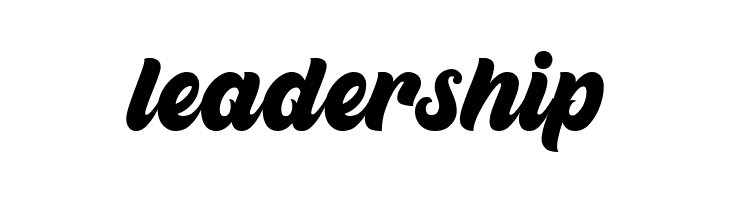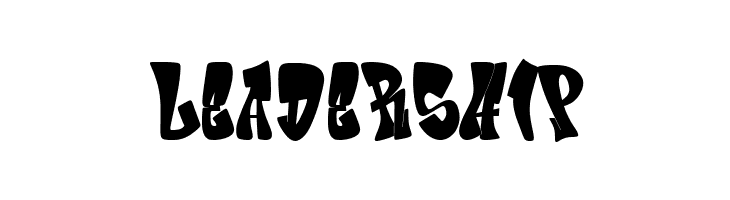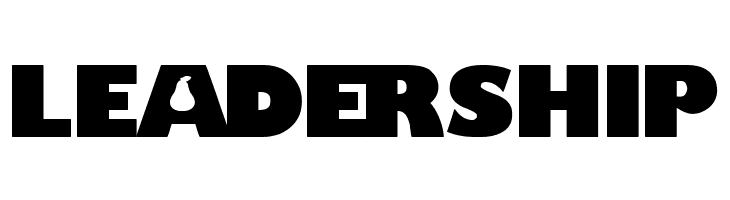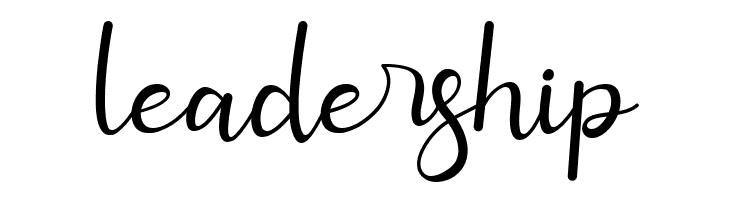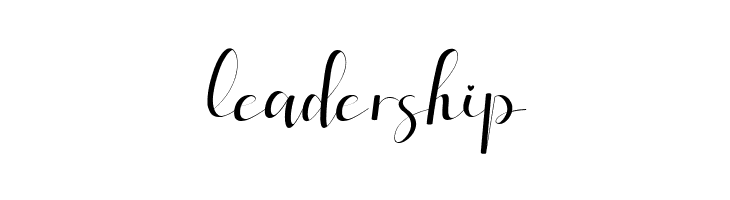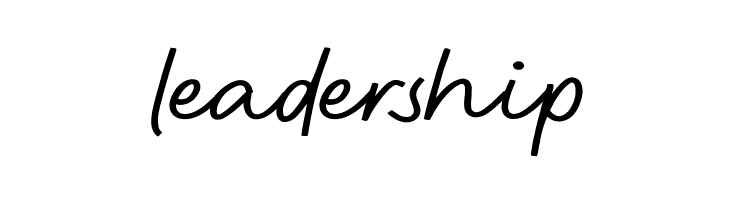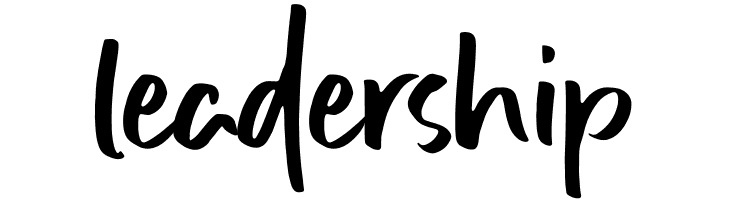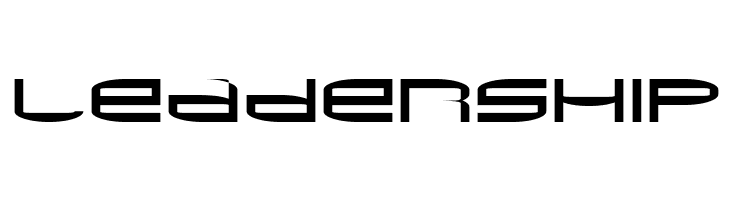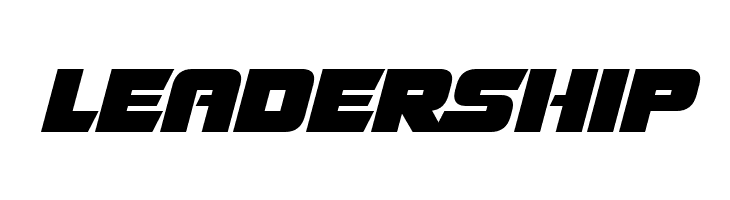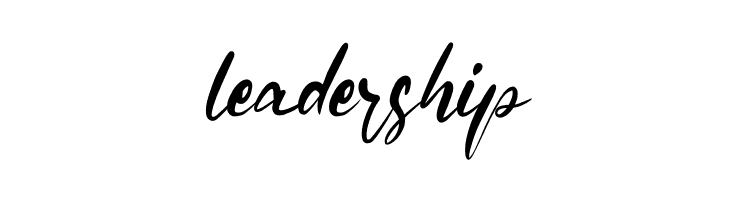
A jagged, spooky font with a bold, distressed appearance.
A bold, flame-themed font with a dynamic and energetic style.
A spooky, dripping font perfect for Halloween themes.
A playful and bold font with exaggerated curves and angles, perfect for creative projects.
A bold, Halloween-themed decorative font with ghostly and pumpkin-like characters.
A bold, jagged font with a spooky, haunted theme.
A bold, gothic-inspired font with sharp, angular edges and a dramatic aesthetic.
Casual handwritten script with artistic flair.
Bold handwritten font with a playful style.
A dynamic handwritten font with fluid strokes and a modern feel.
A dynamic and elegant script font with fluid, cursive strokes.
A playful, handwritten font with a casual and friendly appearance.
A bold, geometric font with thick strokes and a modern, impactful style.
A bold, futuristic italic font with sharp angles and a dynamic style.
A lively, cursive font with fluid strokes and a natural handwriting style.
A playful and flowing script font with smooth, connected strokes.
A playful and flowing script font with elegant curves and connected strokes.
A bold, hand-painted style font with a distressed texture.
A playful, chunky font with exaggerated curves and a whimsical style.
A bold, cursive font with smooth, flowing lines and interconnected characters.
A bold, italic script font with a modern, handwritten style.
Decorative font with exaggerated swashes.
An elegant, cursive font with dynamic strokes and artistic flourishes.
A graceful and flowing script font with a handwritten style.
An elegant and decorative script font with intricate swashes.
A playful, hand-drawn font with a whimsical and friendly style.
A futuristic, geometric font with clean lines and angular shapes.
A bold, playful handwritten font with expressive strokes.
A fluid, elegant handwritten font with smooth, connected strokes.
A sophisticated script font with fluid, interconnected strokes and elegant loops.
A bold, elegant font with strong strokes and a commanding presence.
An elegant script font with flowing, interconnected letters and decorative flourishes.
Elegant cursive font with interconnected characters and stylish flourishes.
A bold, expressive handwritten font with fluid strokes and a modern, playful style.